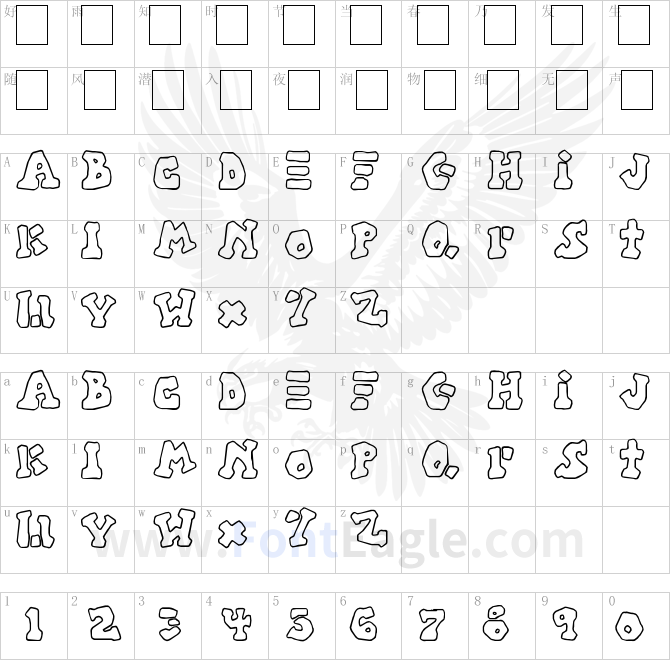
- Font name:SBC AztecOutline
- Font Subfamily ID:SBC Aztec Outline:Version 1.00
- Font Full Name:SBC Aztec Outline
- Font Version:Version 1.00 July 12, 2004, initial release
- Postscript:SBCAztecOutline